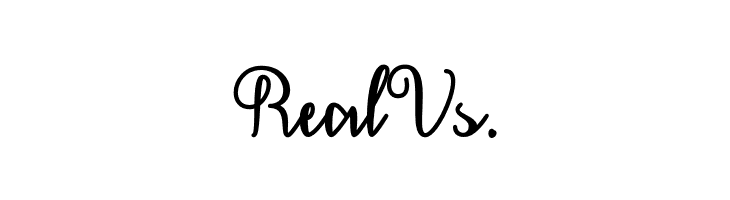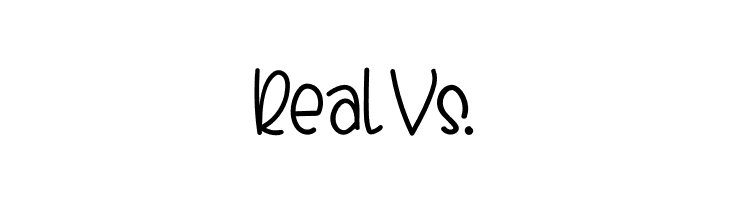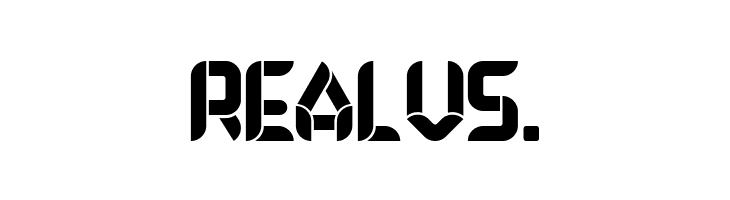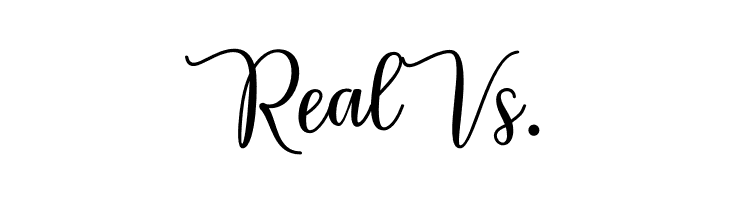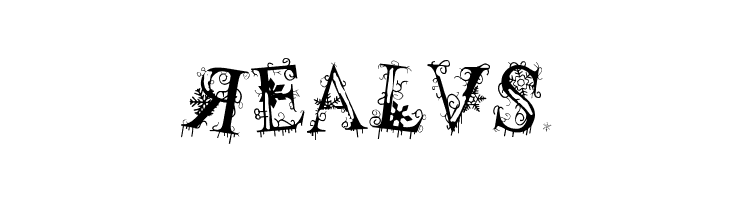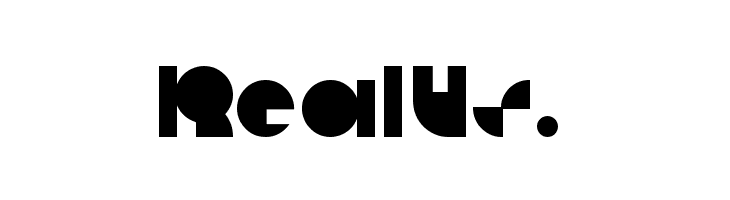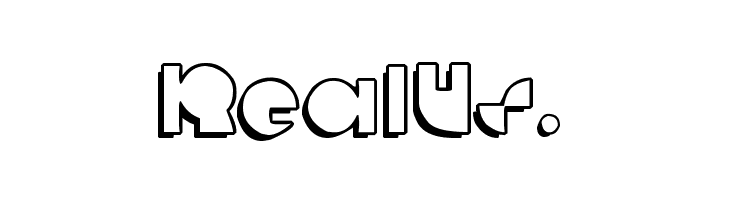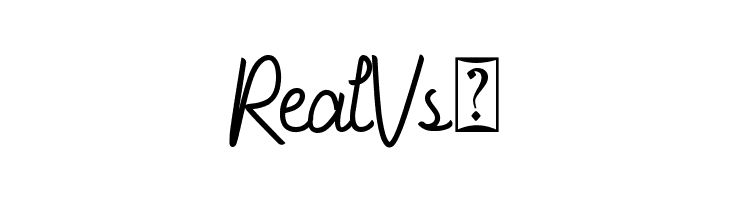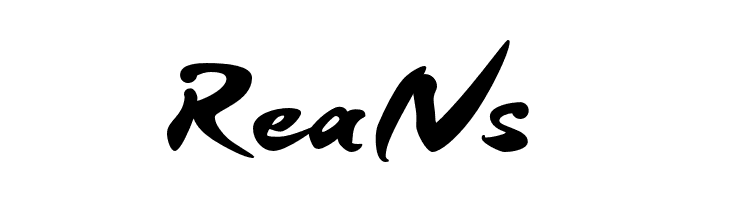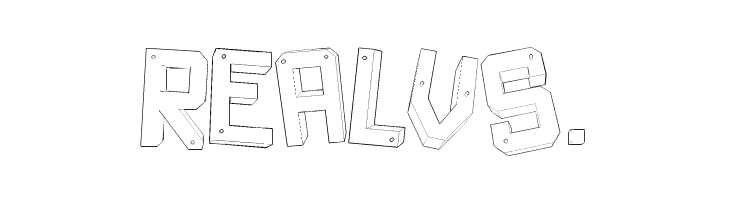
A bold, brush-style font with a dynamic, handwritten appearance.
A bold, geometric font with a futuristic and industrial design.
A bold, brush-style font with a hand-painted, artistic appearance.
A bold, brush-style font with a hand-drawn, expressive appearance.
A bold, three-dimensional font with shadow effects for impactful designs.
A bold, geometric font with sharp angles and consistent stroke width.
A decorative cursive font with elegant swirls and flourishes.
A bold, 3D font with a dotted outline and playful style.
A bold, distressed font with a vintage woodcut style.
An ornate, decorative font with intricate swirls and flourishes.
Geometric decahedron dice symbol font with numbers and dot patterns.
A bold and dynamic script font with expressive, fluid strokes.
A bold, distressed font with a grunge, decayed appearance.
A distressed, vintage-style font with a textured, eroded appearance.
A bold, geometric font with a retro-futuristic style.
A bold, geometric font with playful and modern design elements.
A whimsical and artistic font with elongated, narrow characters and decorative loops.
A charming calligraphic font with elegant, flowing cursive letterforms.
A dynamic handwritten font with elegant, flowing cursive strokes.
A playful, handwritten script font with flowing, interconnected strokes.
A charming calligraphic font with flowing, interconnected letterforms.
A playful, handwritten font with smooth curves and a casual style.
A playful, handwritten script font with fluid, interconnected strokes.
A charming and elegant script font with fluid, connected letterforms.
A bold, modern font with a geometric and futuristic style.